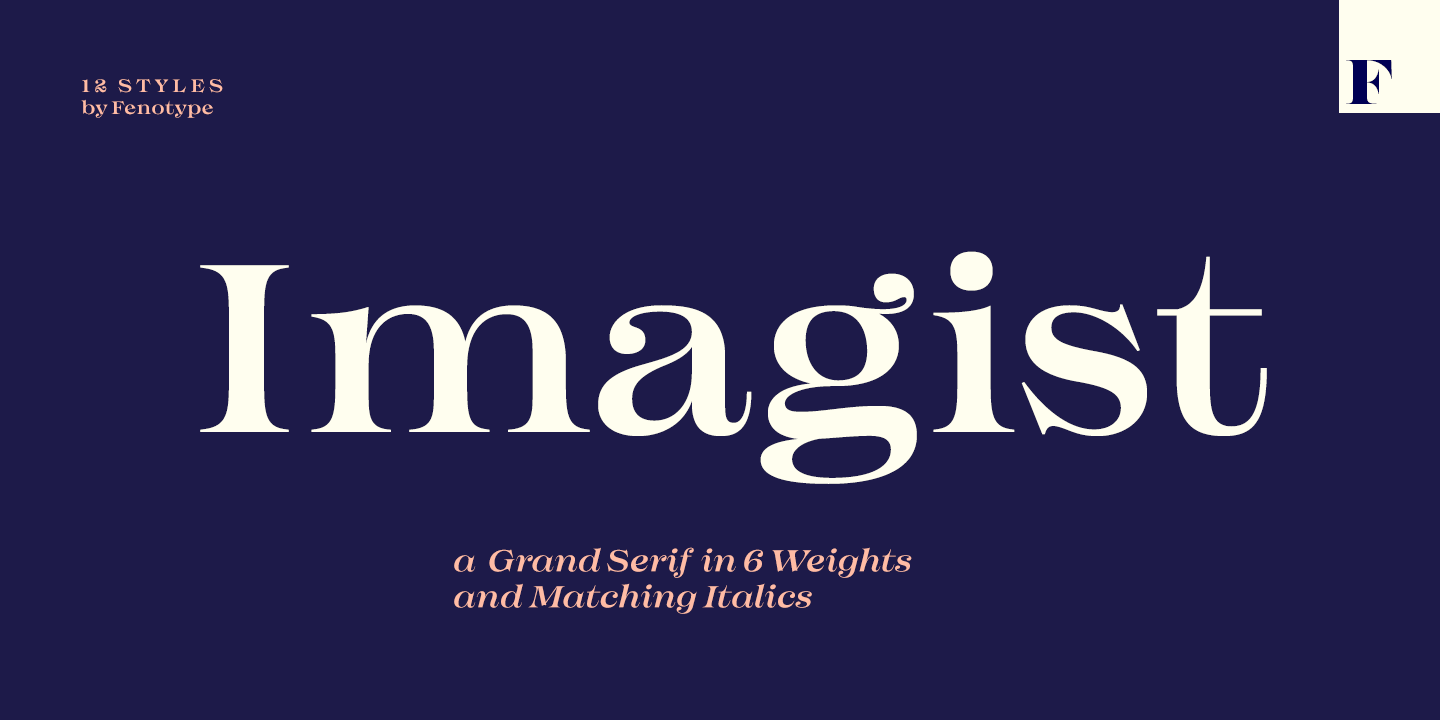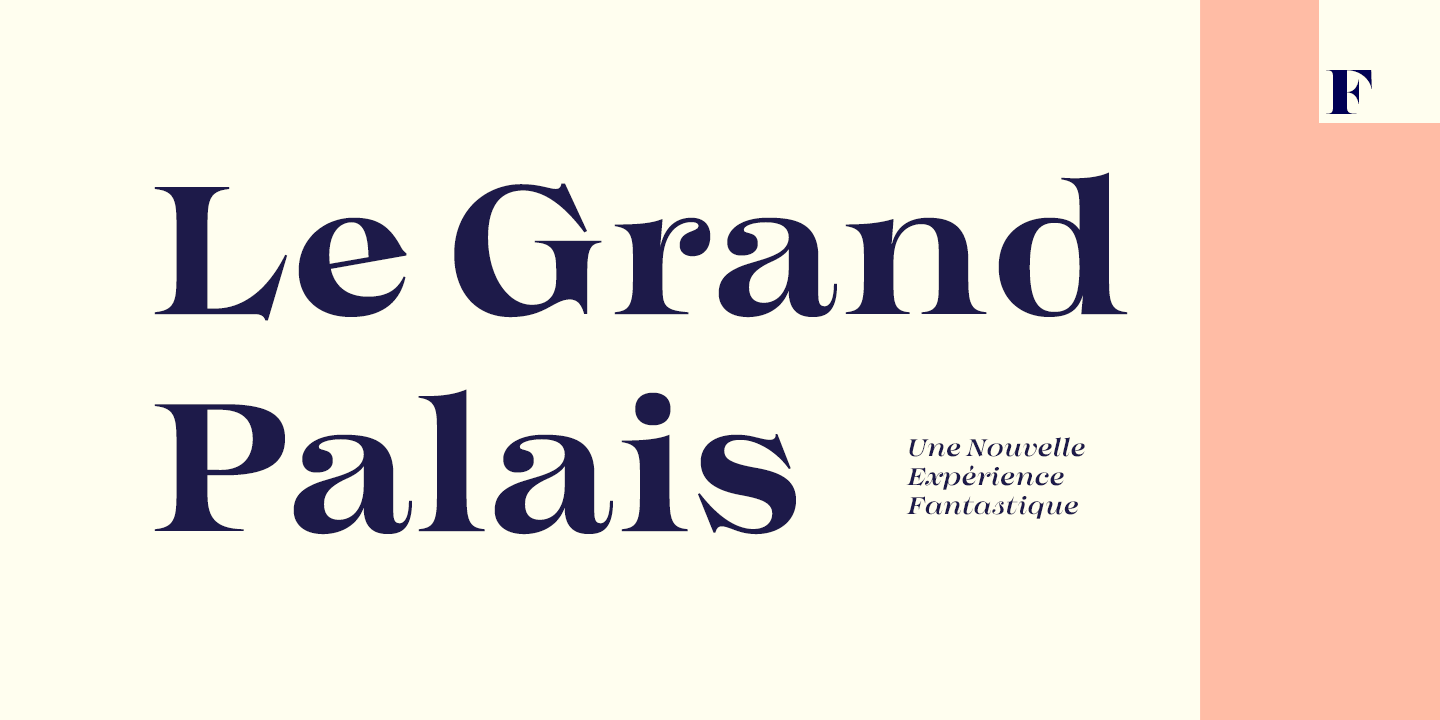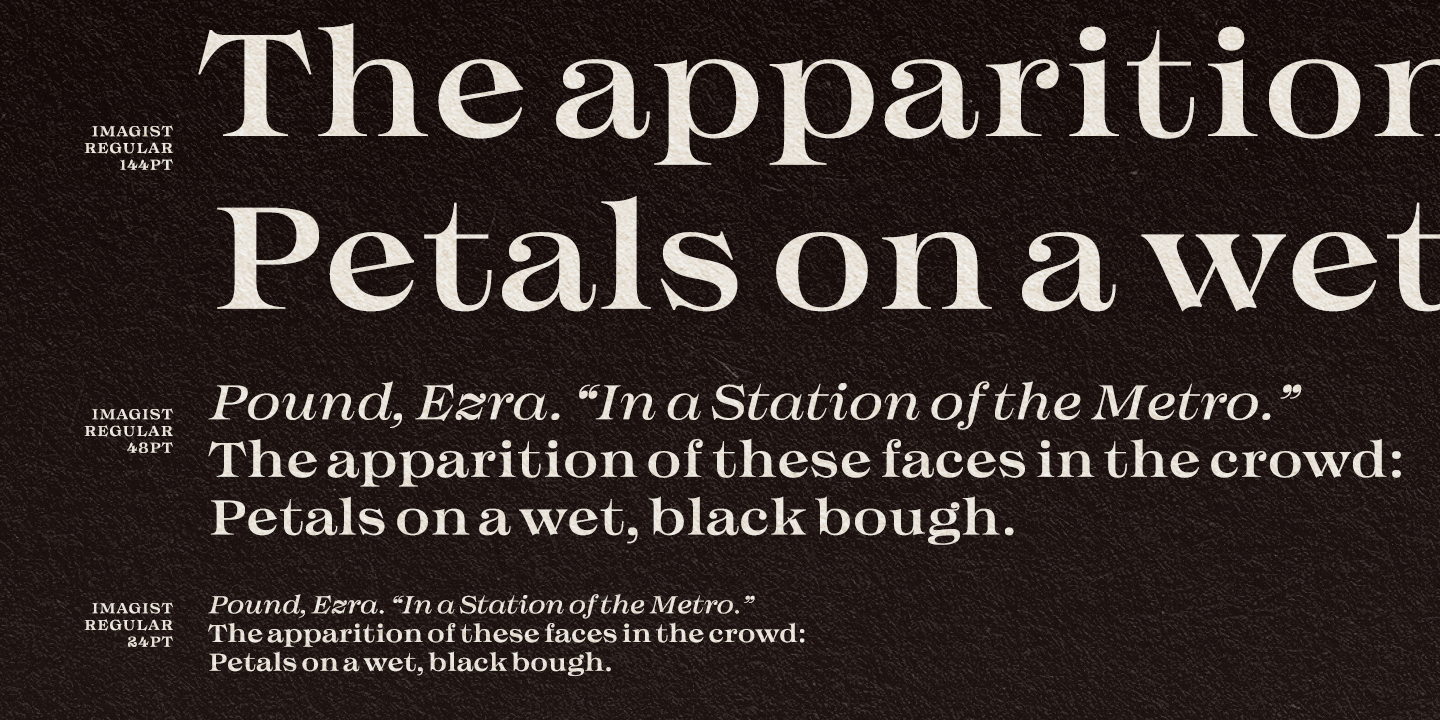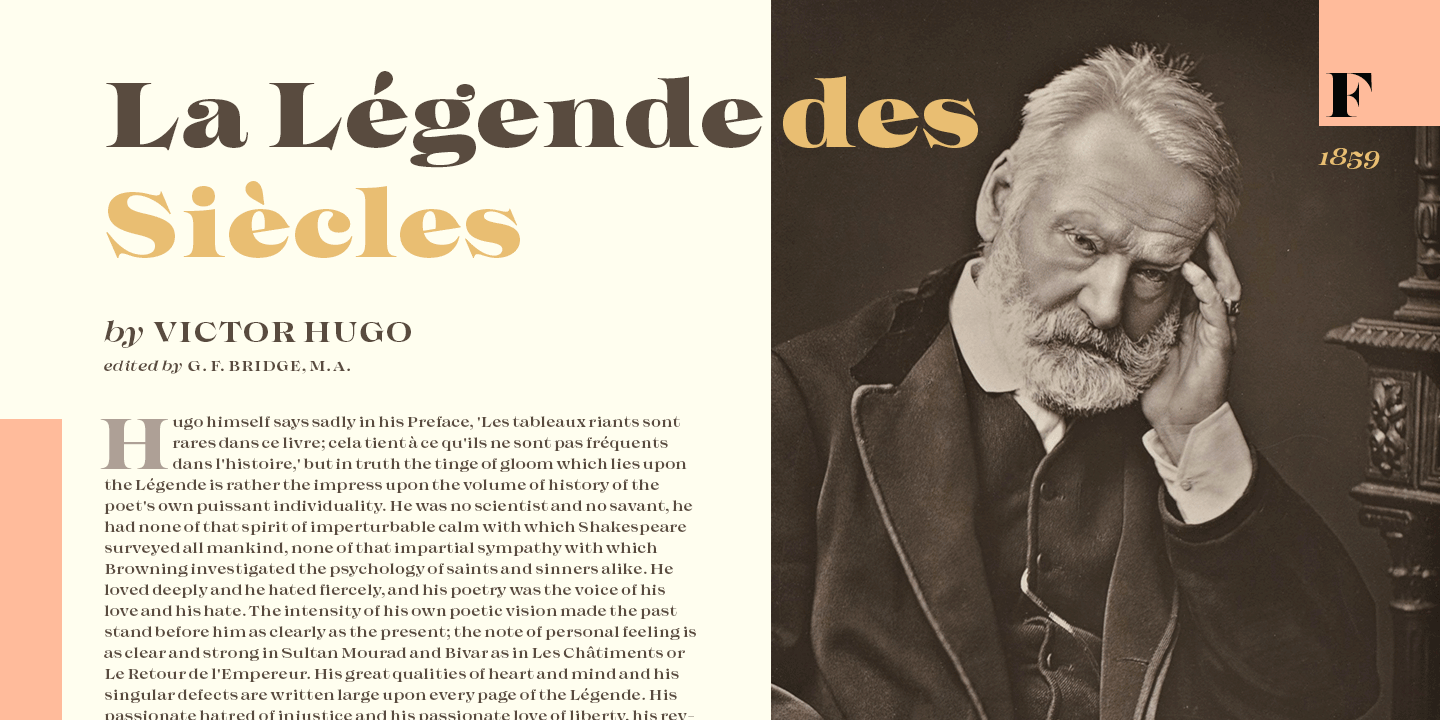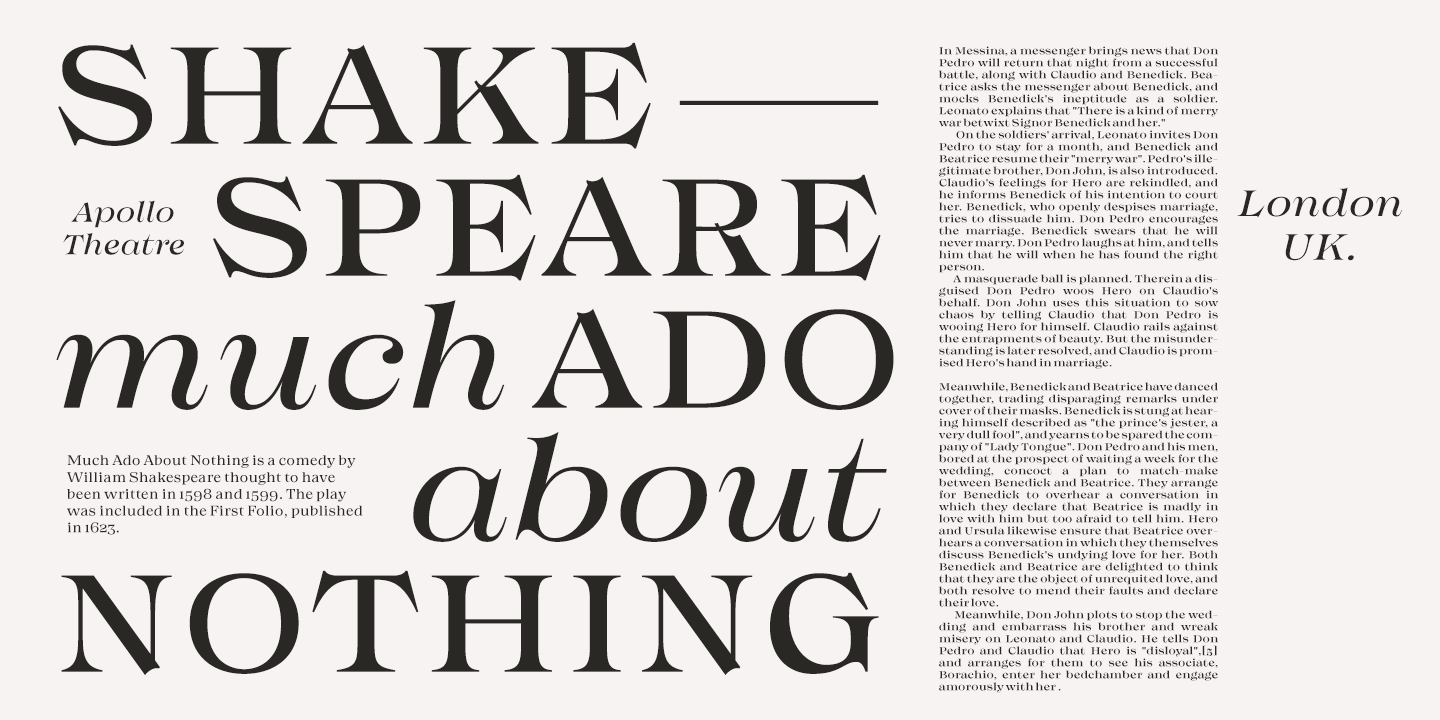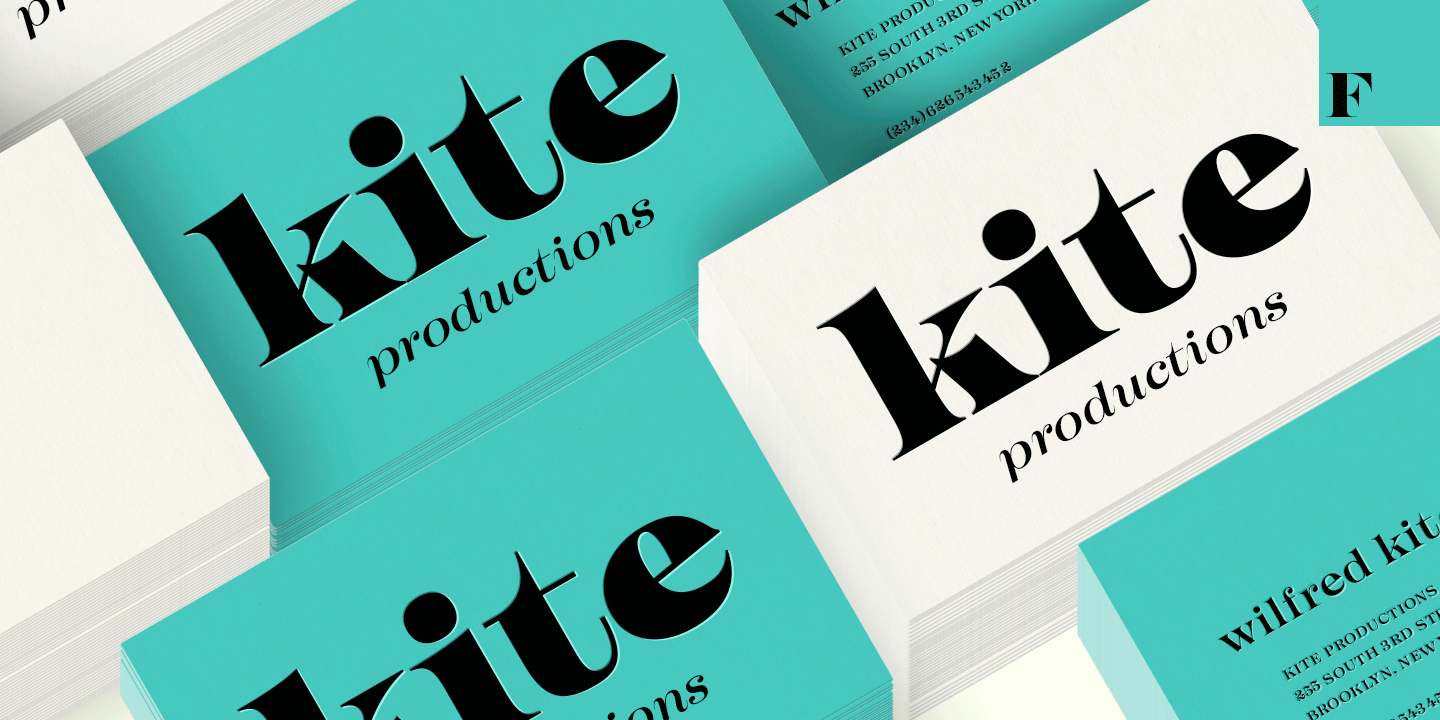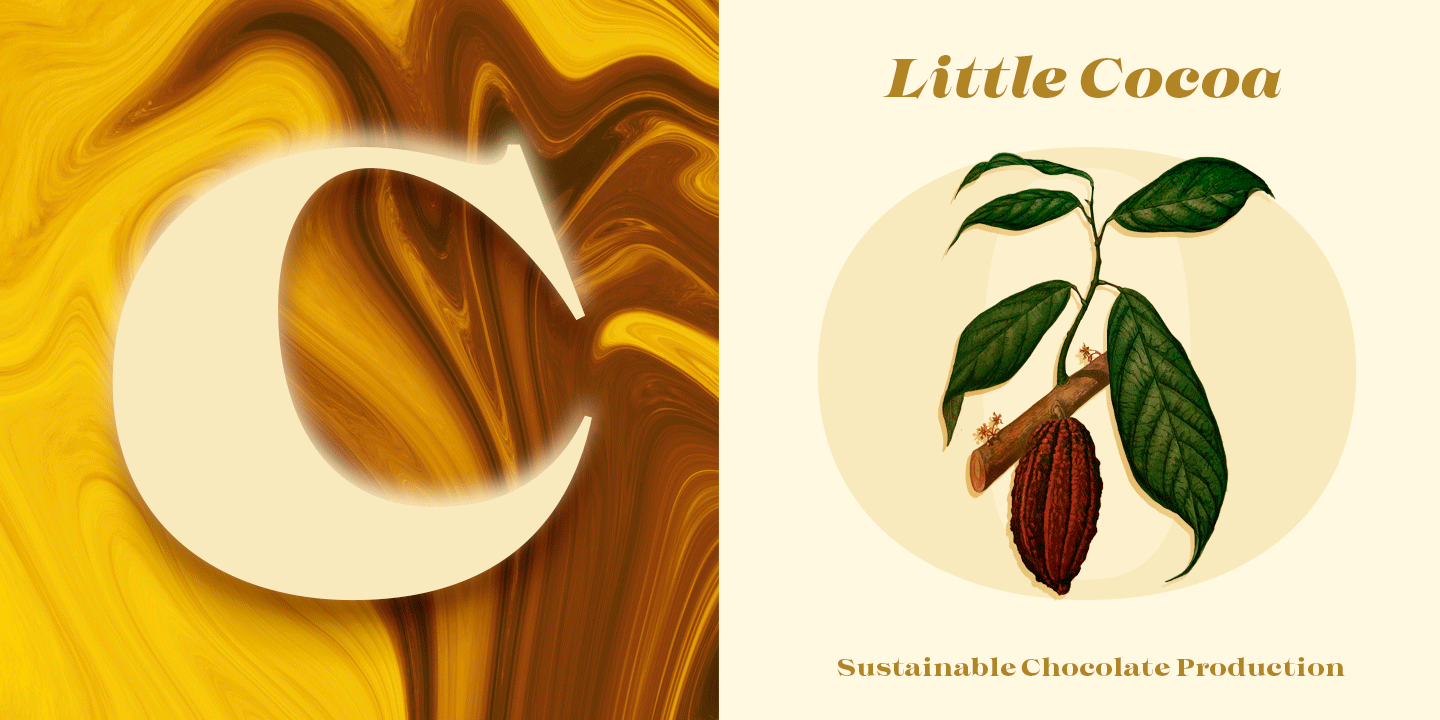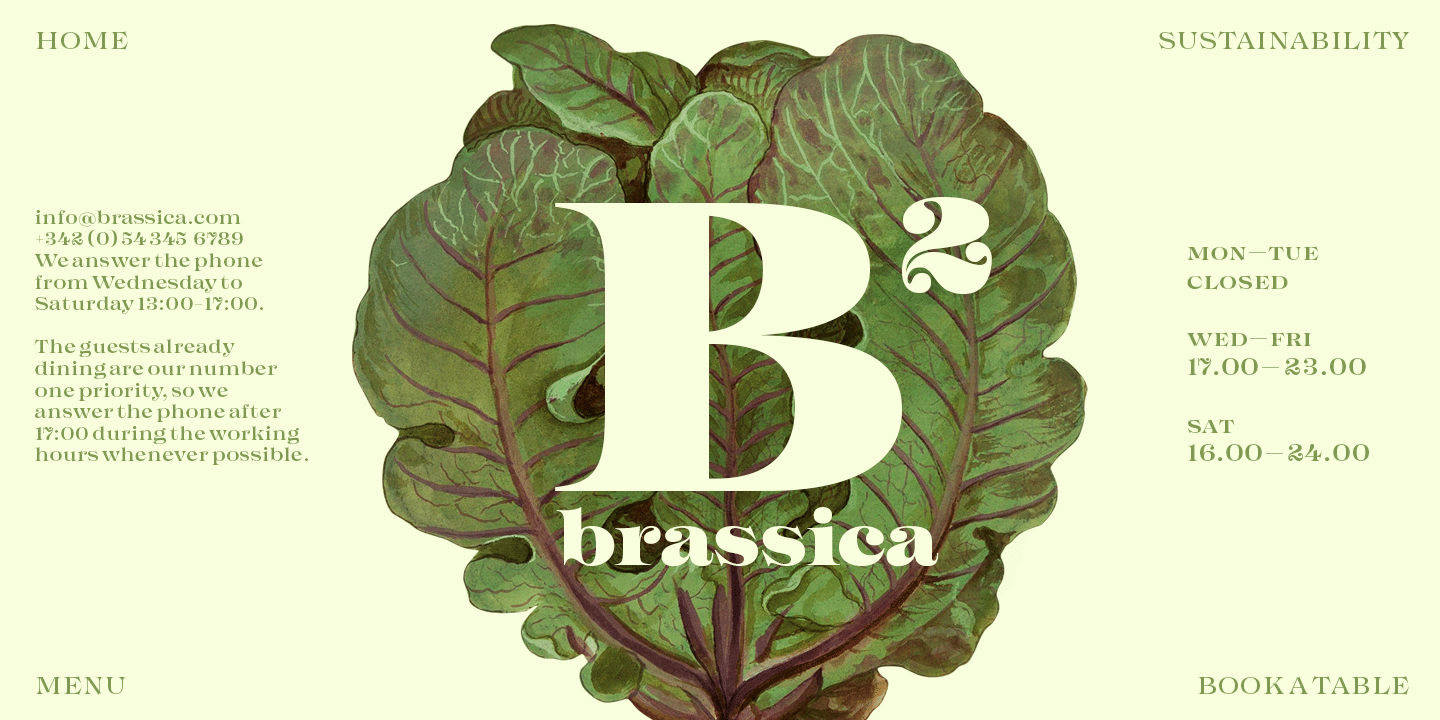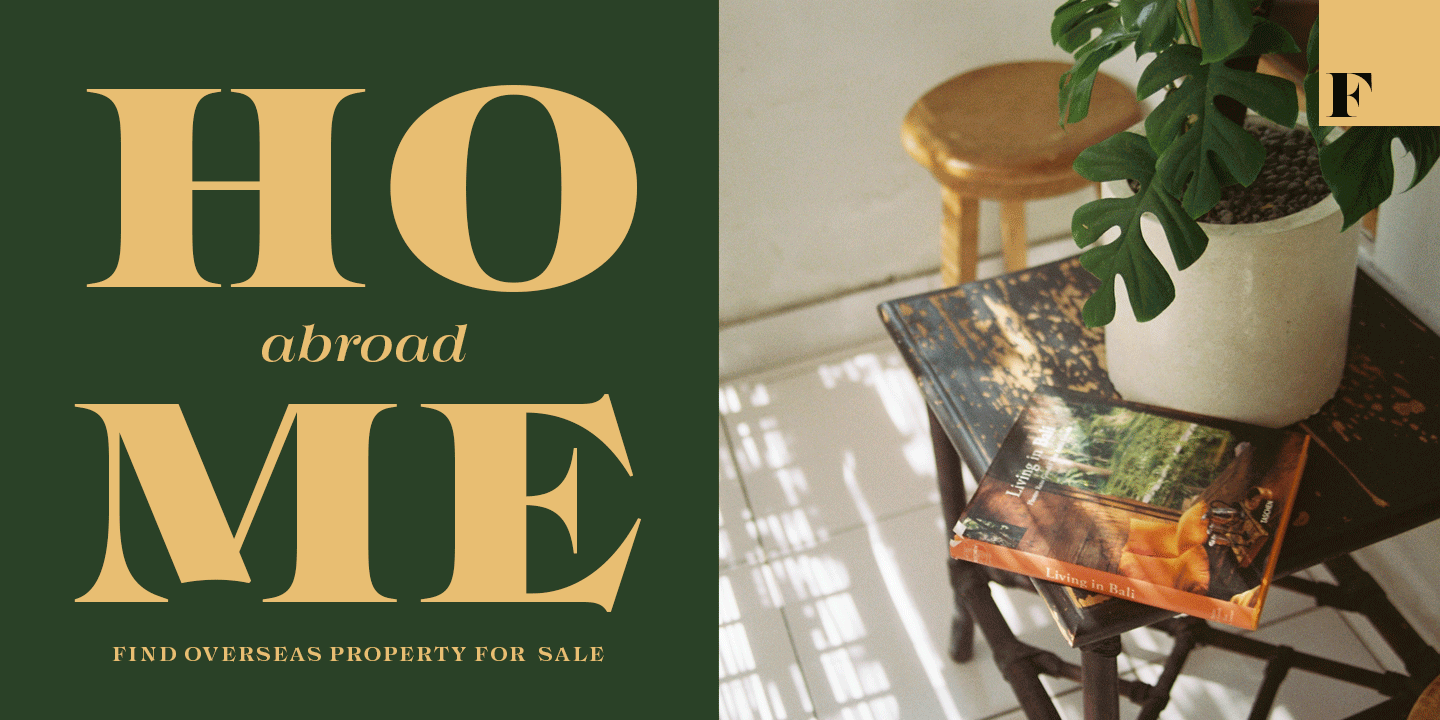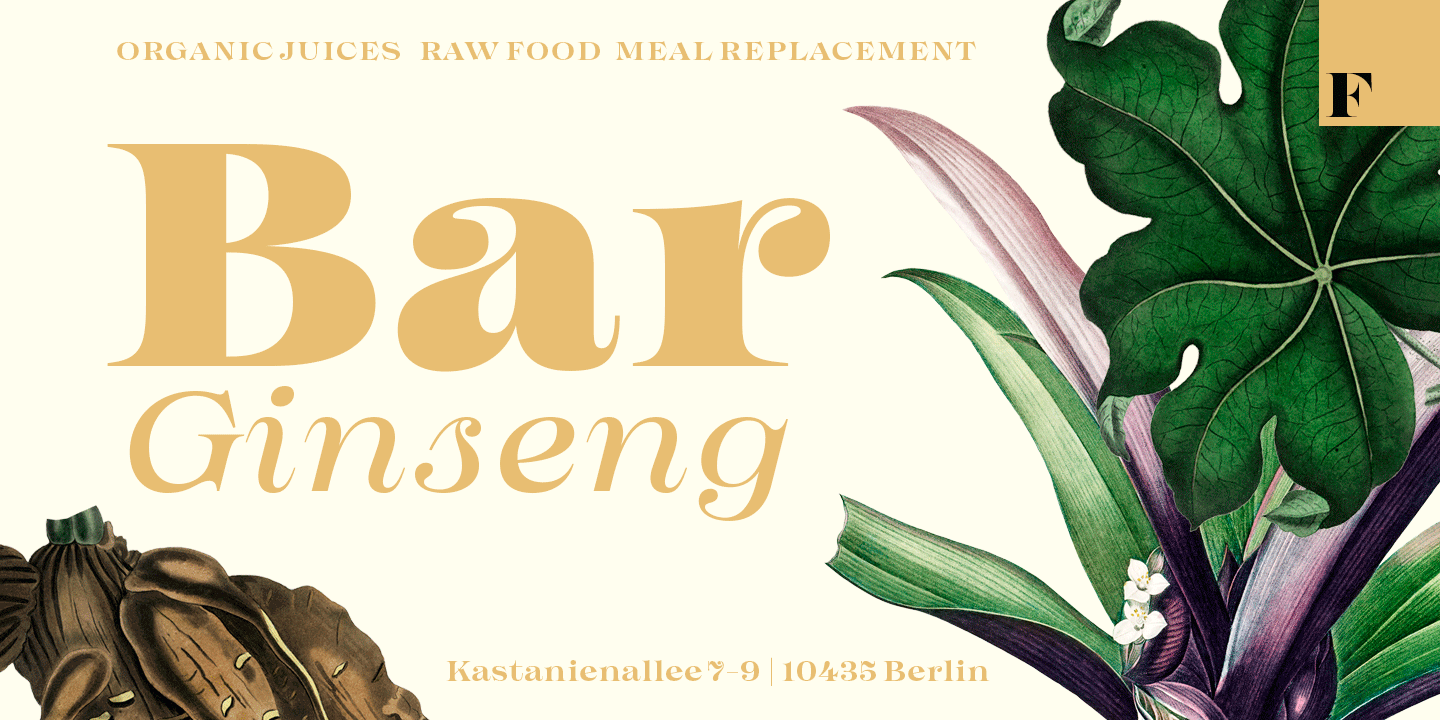
Imagist
Font Family by Fenotype
The mystic sadness of the sight of a far town seen in the night.
Like the poetry movement of the early 20th century, from which the font takes its name, Imagist relies on the power of concrete images and brings an organic vibration to the words it forms. Imagist is a lively and decorative serif typeface with prominent features that appear especially in the letters K, R, M, N, W, V, k, w, v and y. Powerful ball terminals also bring recognizable attraction.
Imagist contains six weights and corresponding Italics. Italics have a cursive-style letter s for as Stylistic Alternate. Old Style Numerals and Small Caps can be found in all cuts.
Poem by T. E. Hulme.